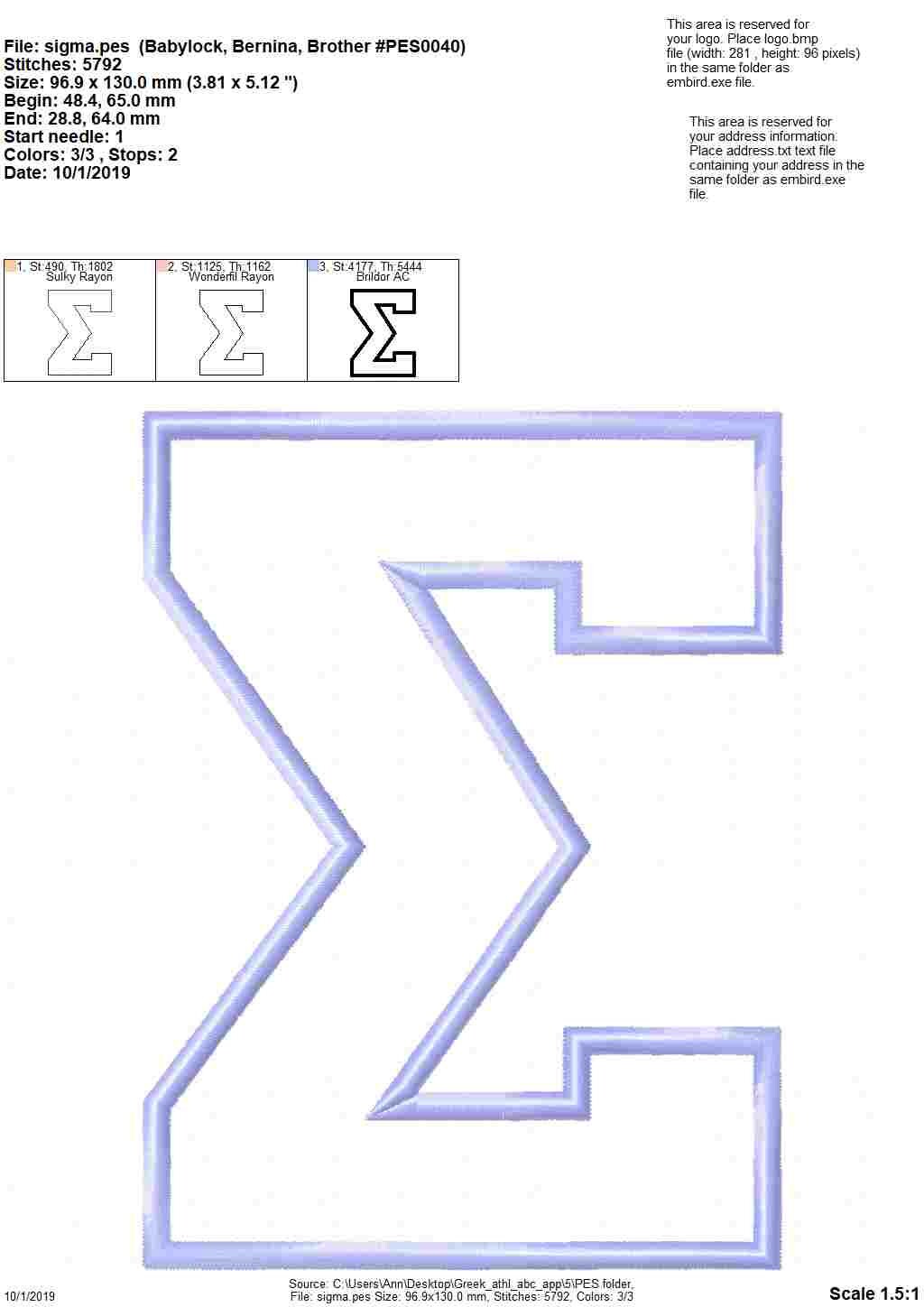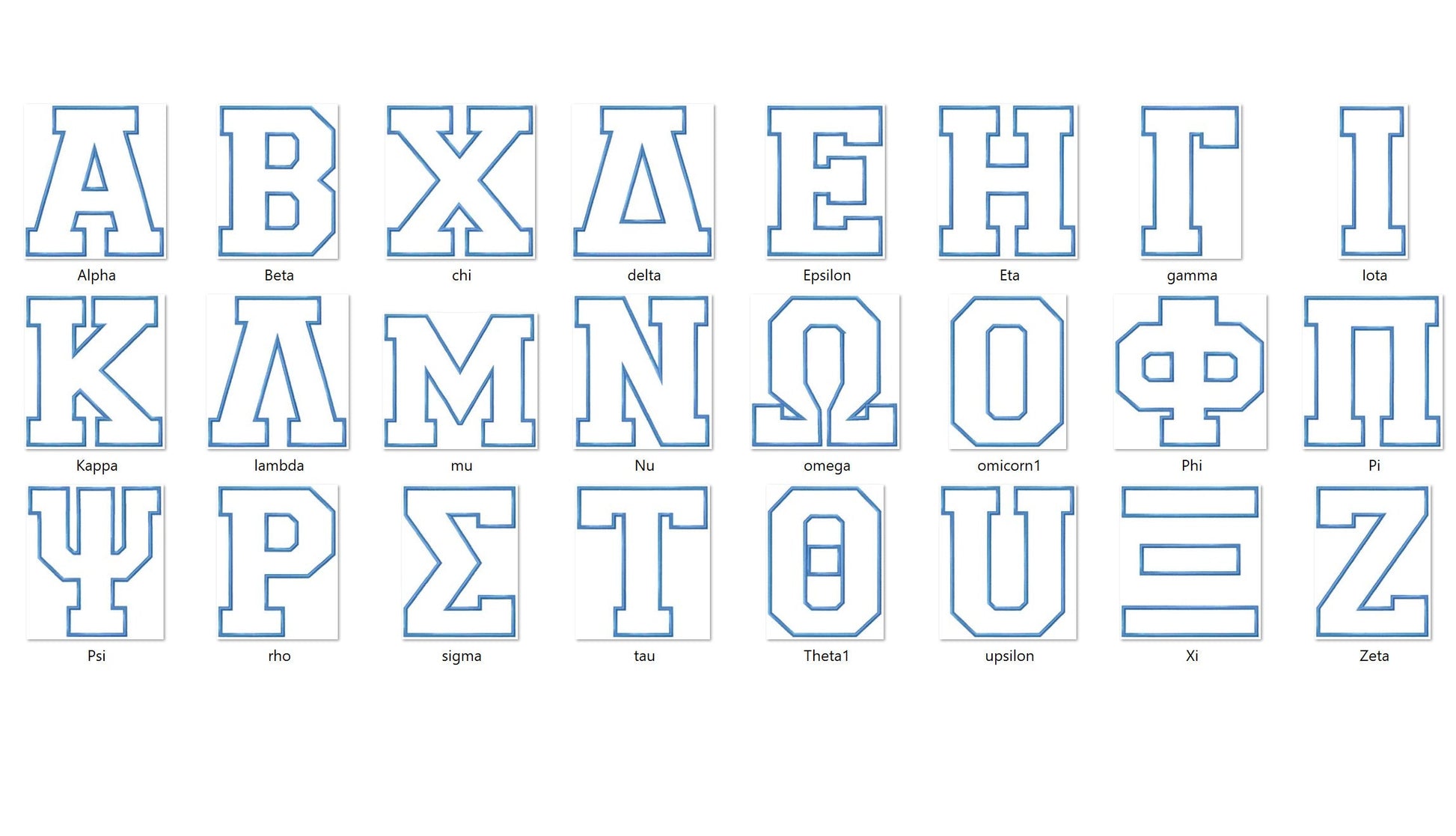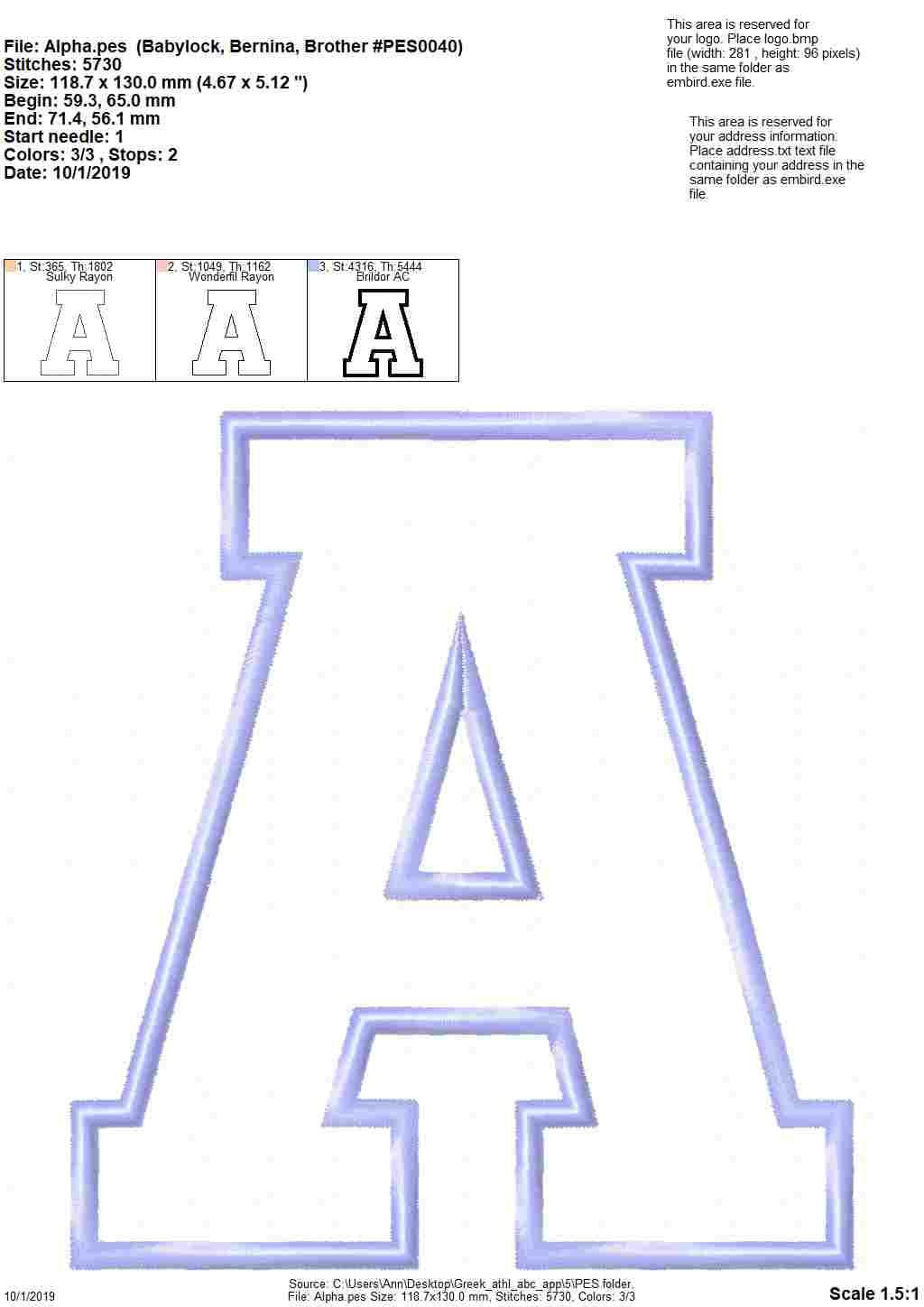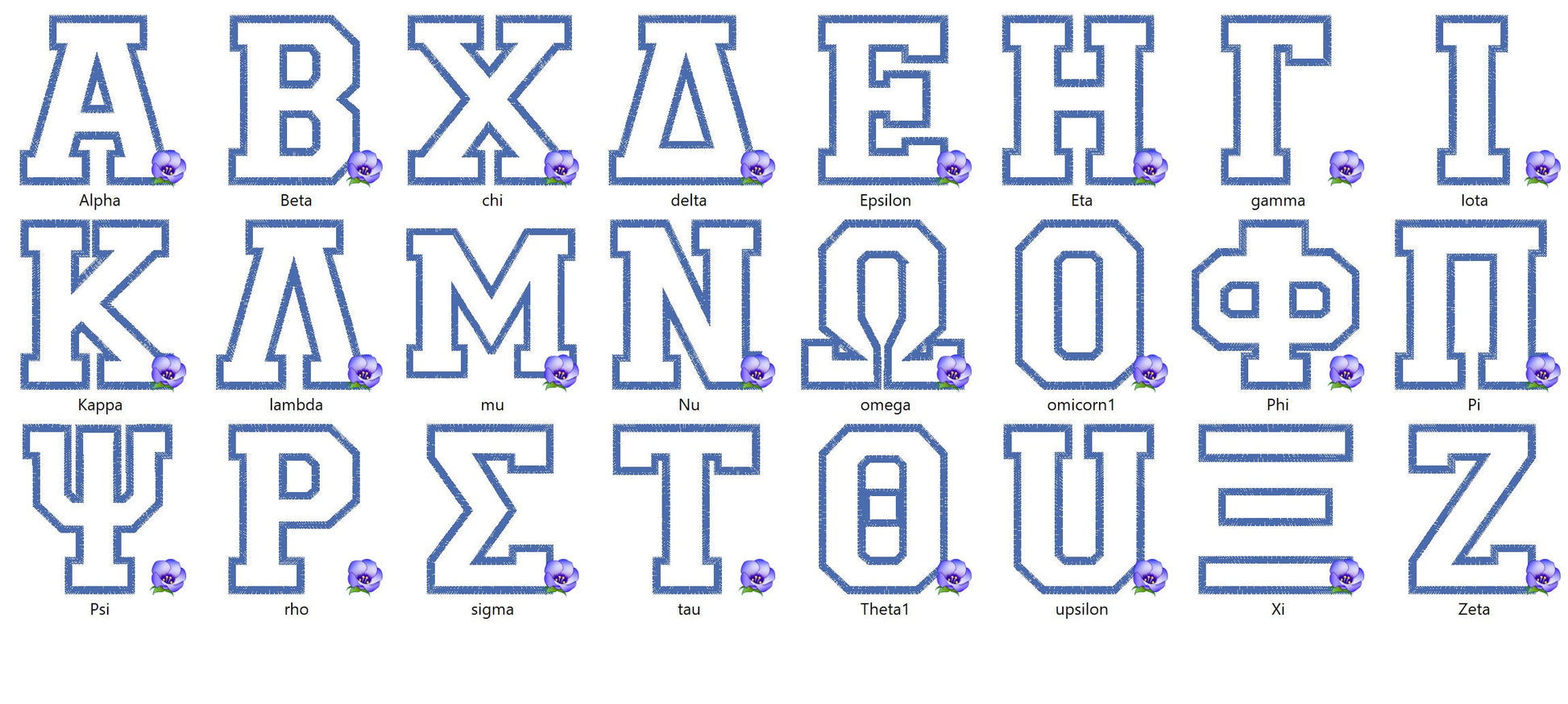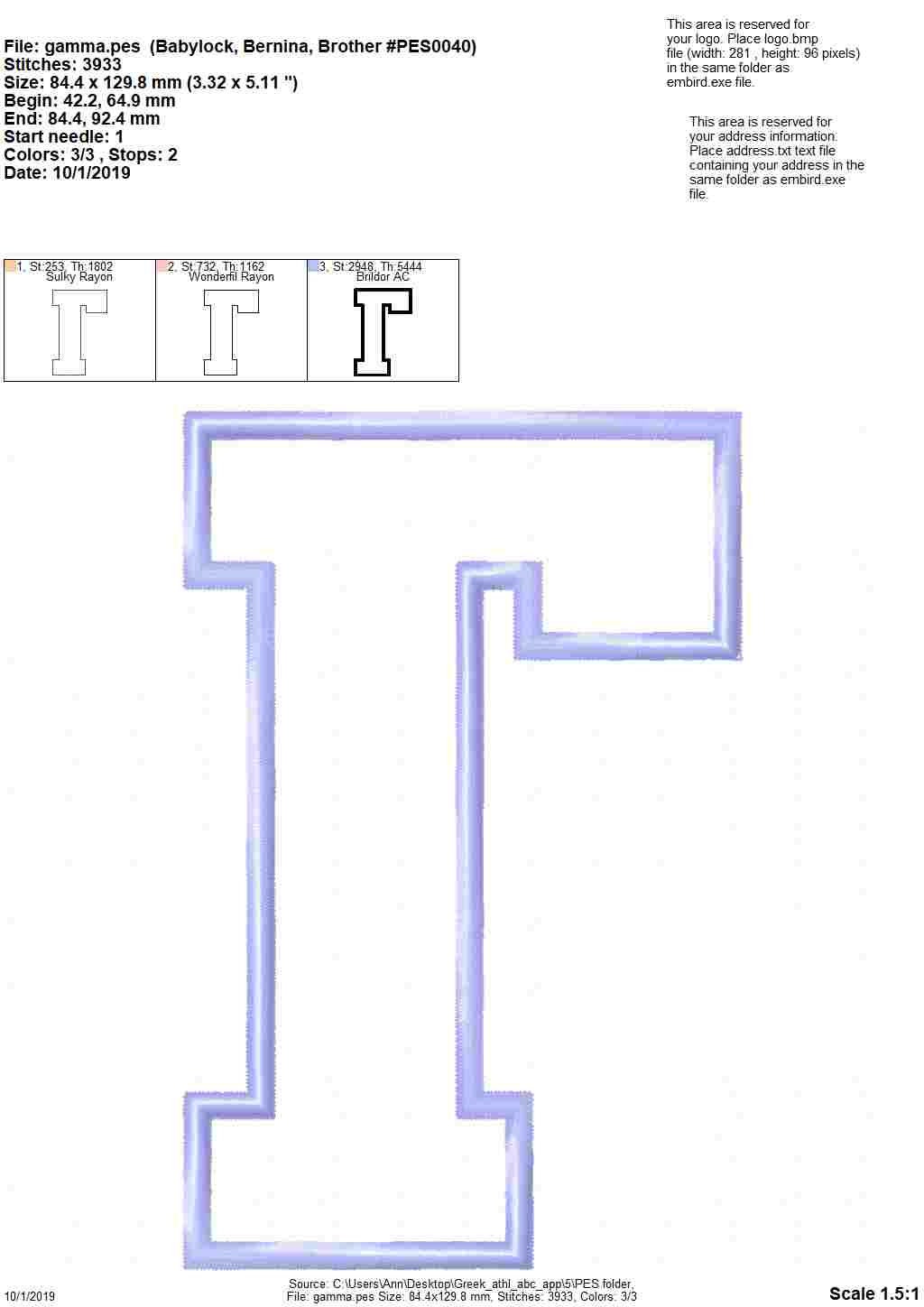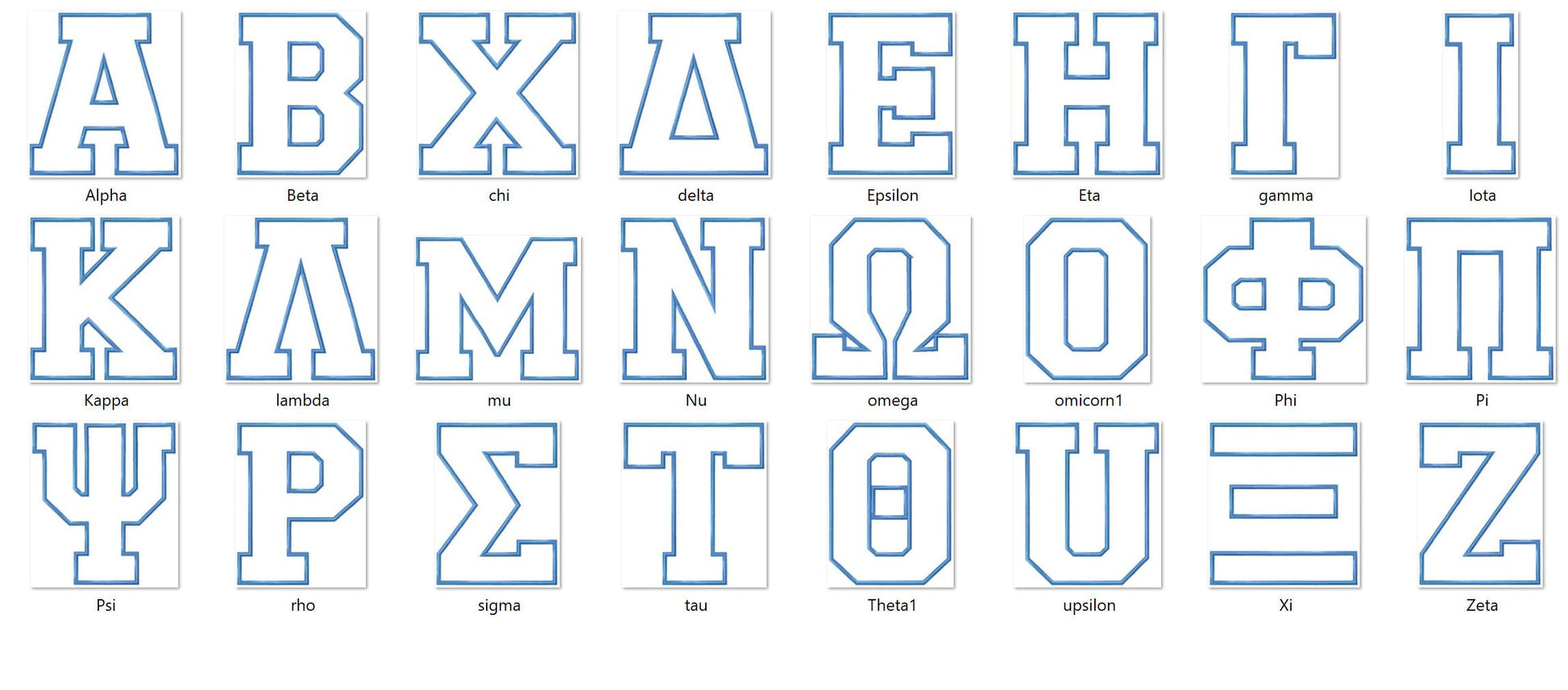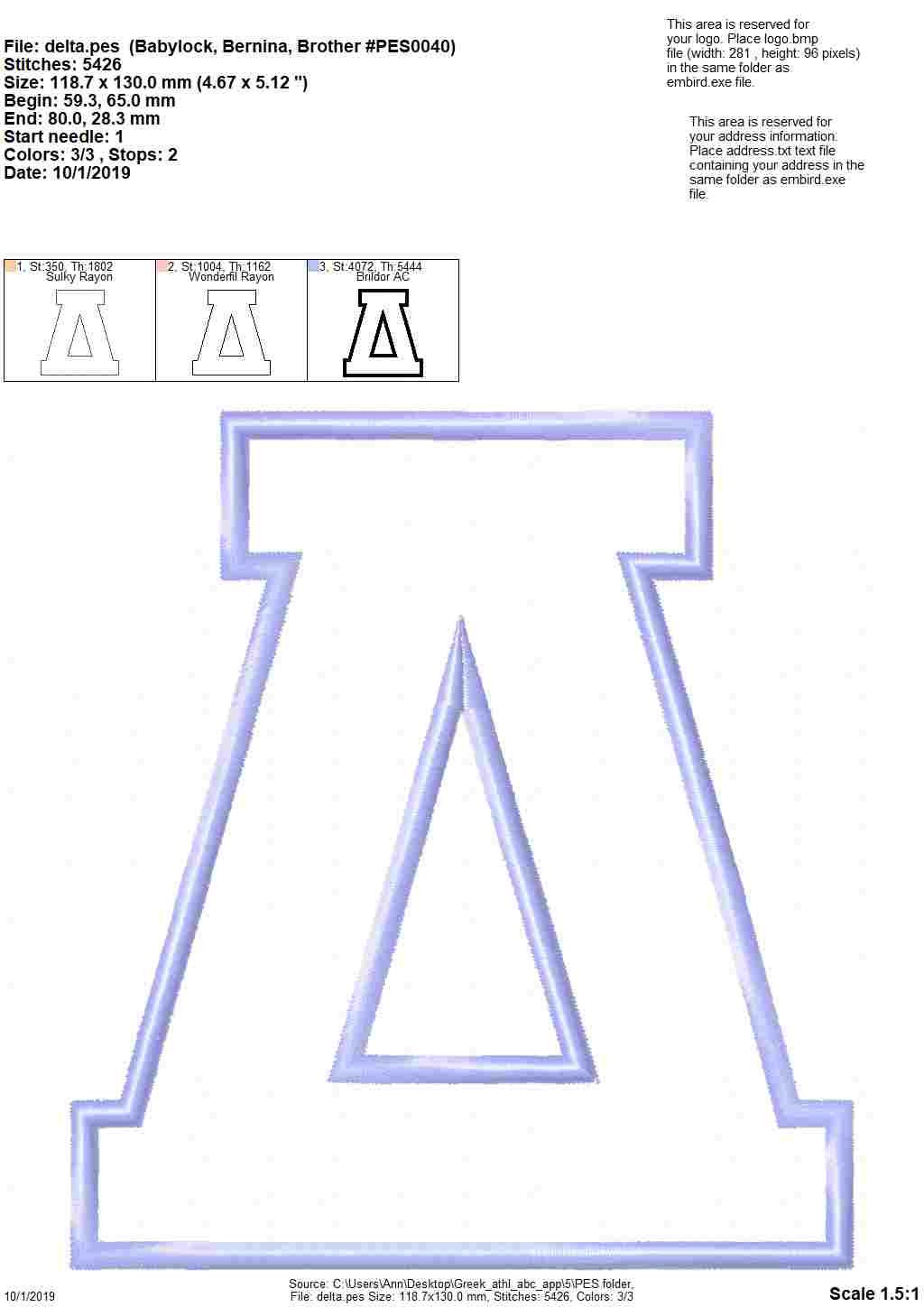
Or click to open the linkA sport block varsity Greek alphabet in applique, for sorority and fraternity letters. Great on jerseys, sweatshirts, caps and bags.
All 24 Greek letters in bold athletic block applique. Letters come in five sizes: 2, 3, 4, 5 and 6 inches.